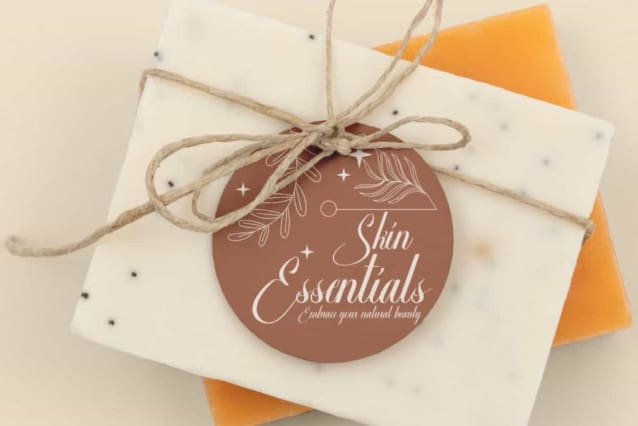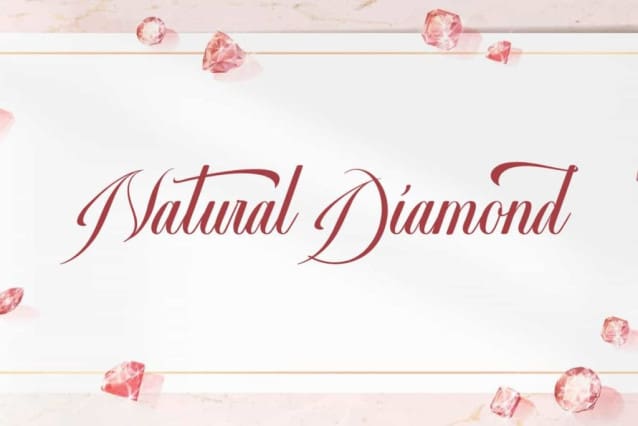
Natural Diamond Font
Natural Diamond Font is a stunning beautiful script font with calligraphic style by VinType Studio. This font has a natural handwriting style with elegant flowing lines. It will be good for many designs, such as brochure, cover, custom design, gift box, invitation, label, poster, product packaging, quote, screen printing, stationery, website, and more!
Natural Diamond Font includes full set of Uppercase and Lowercase Basic Characters, Numerals, and Punctuation. This font also contain Ligature and Alternate characters that will be suitable for many industries, such as advertisement, café, event or wedding organizer, fashion, furniture, jewelry, handicraft, resort, restaurant, spa and salon, etc.